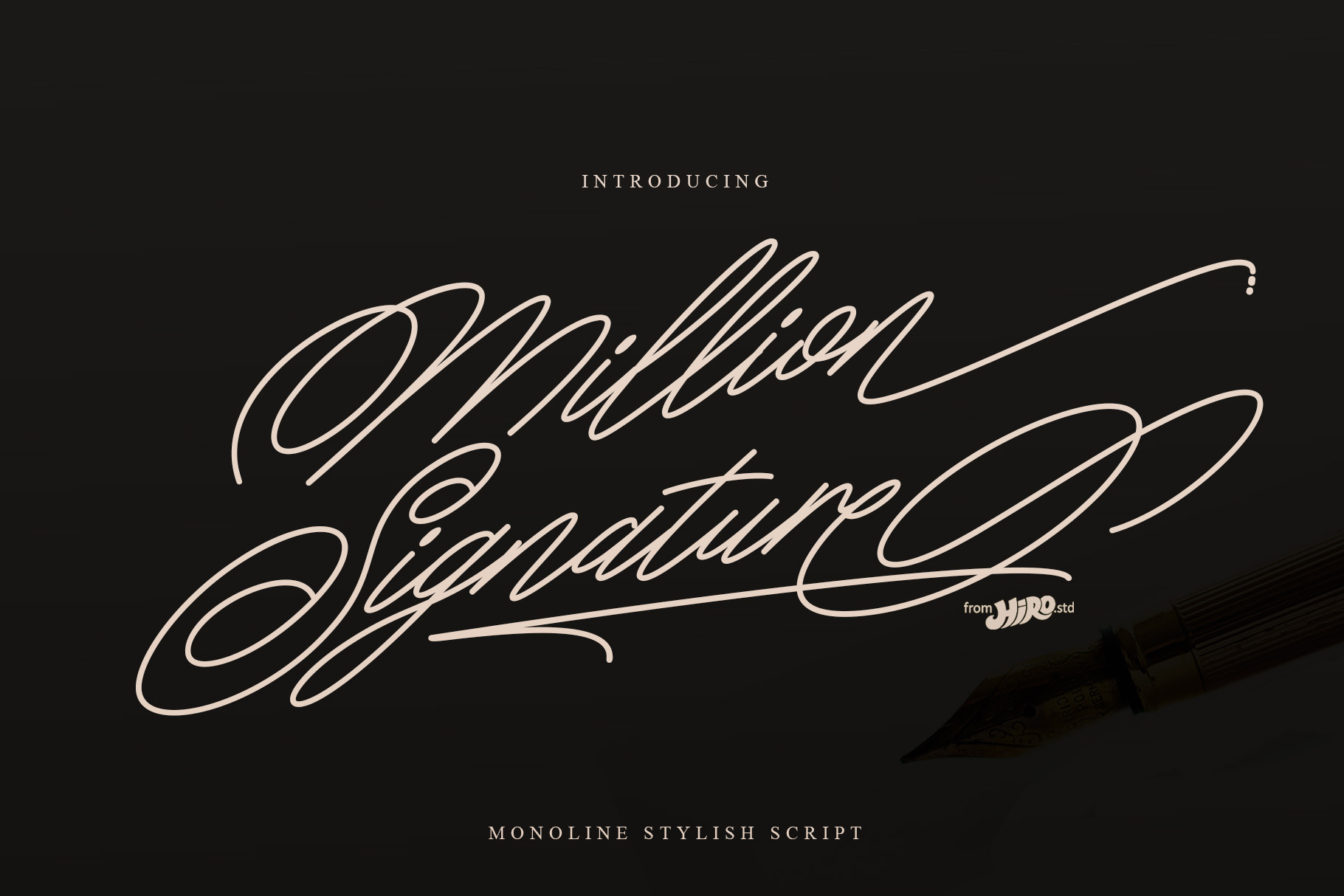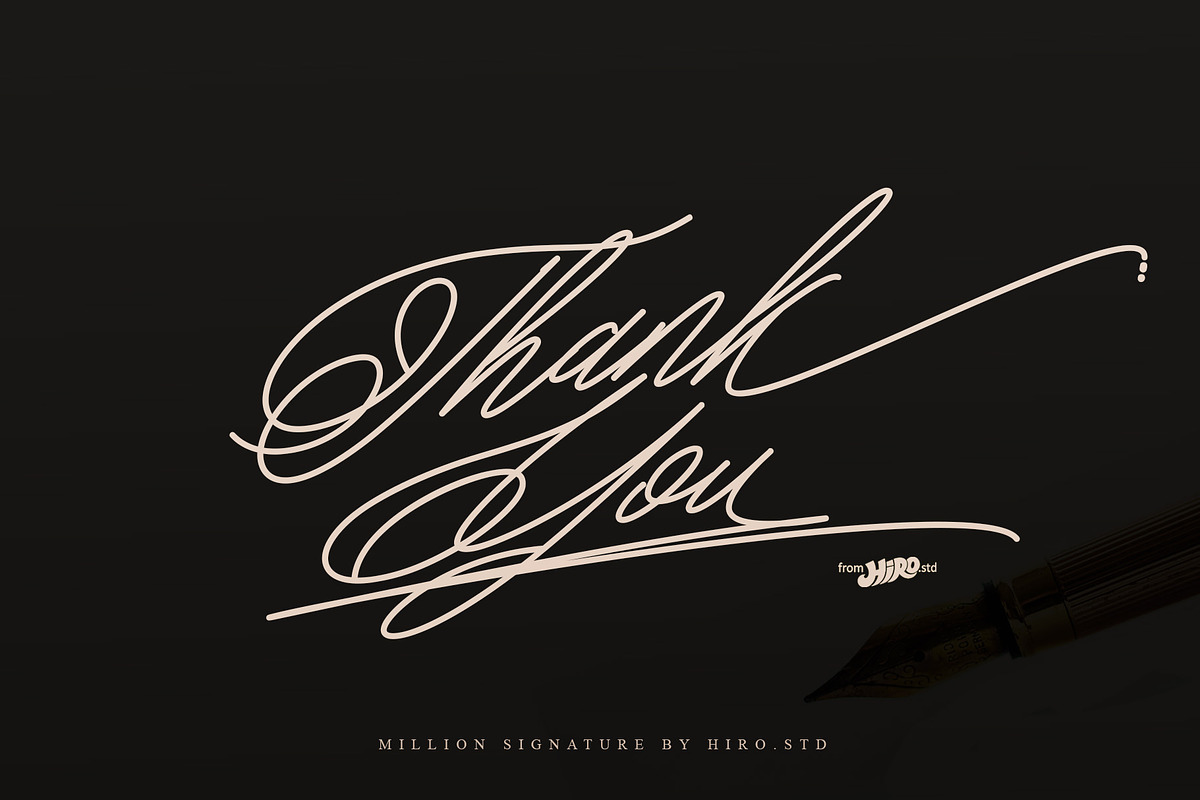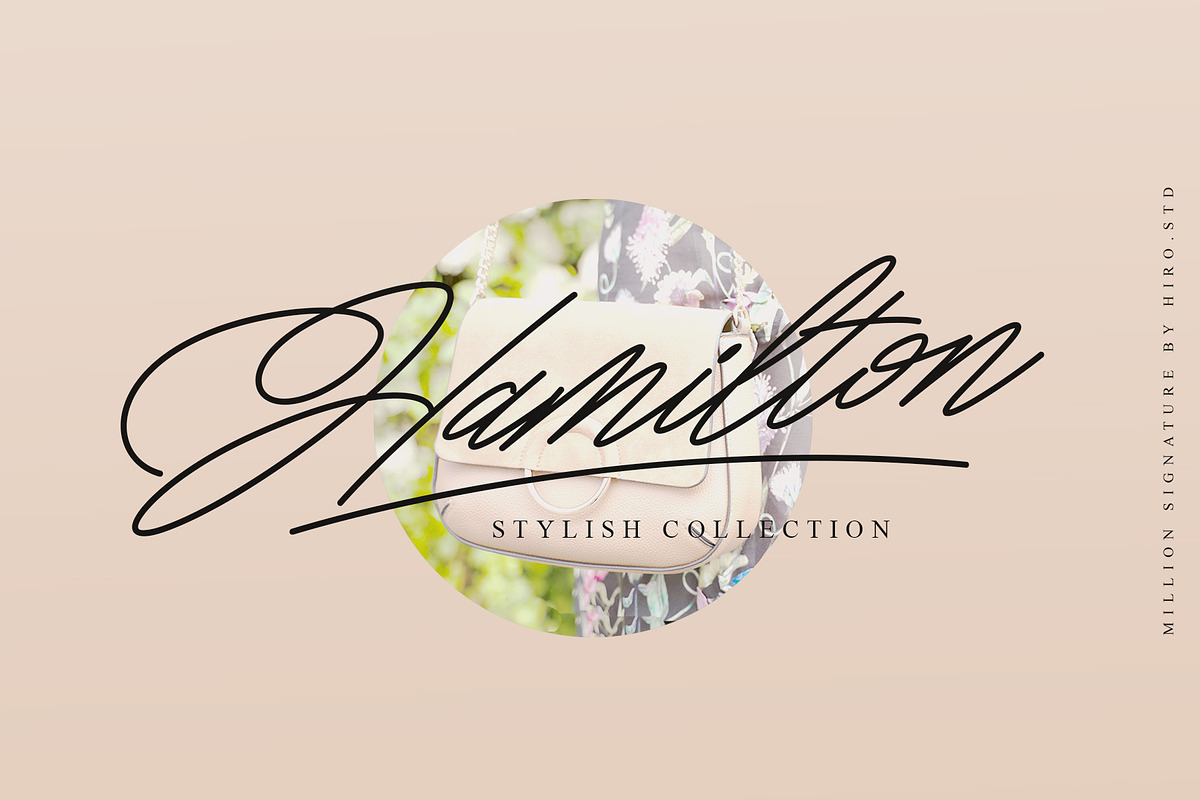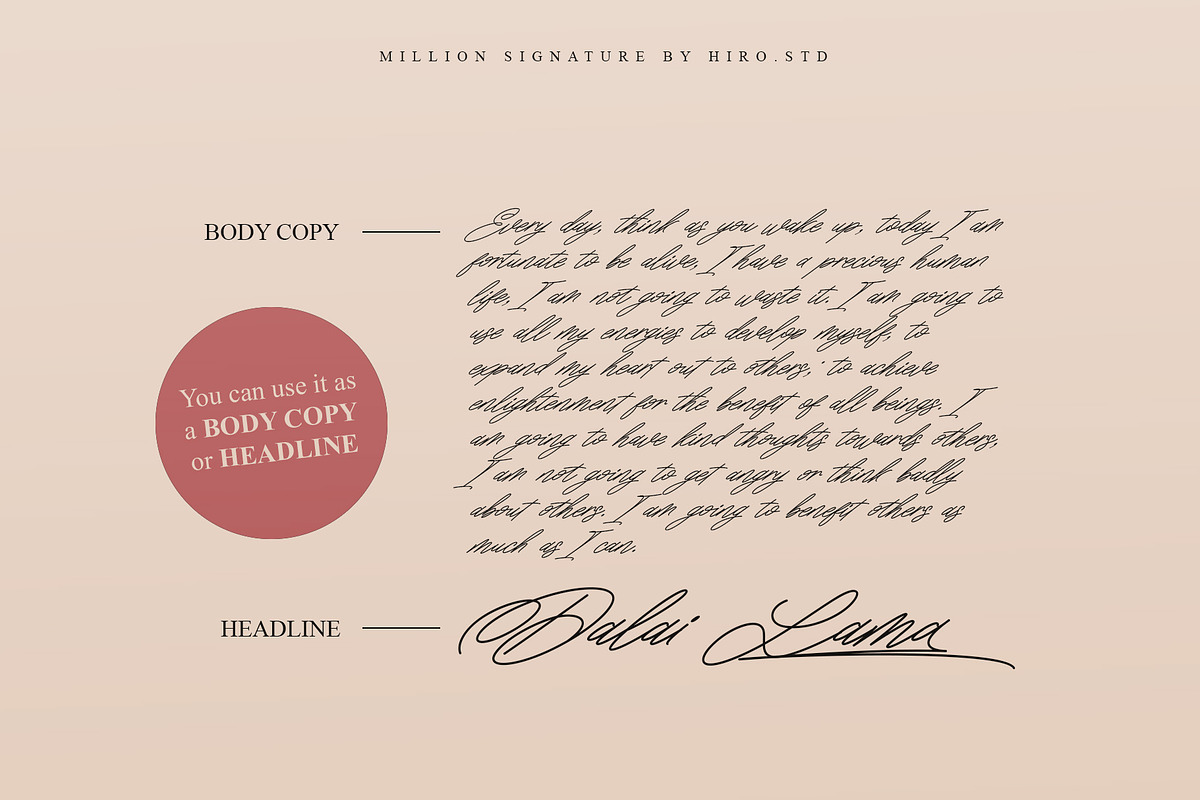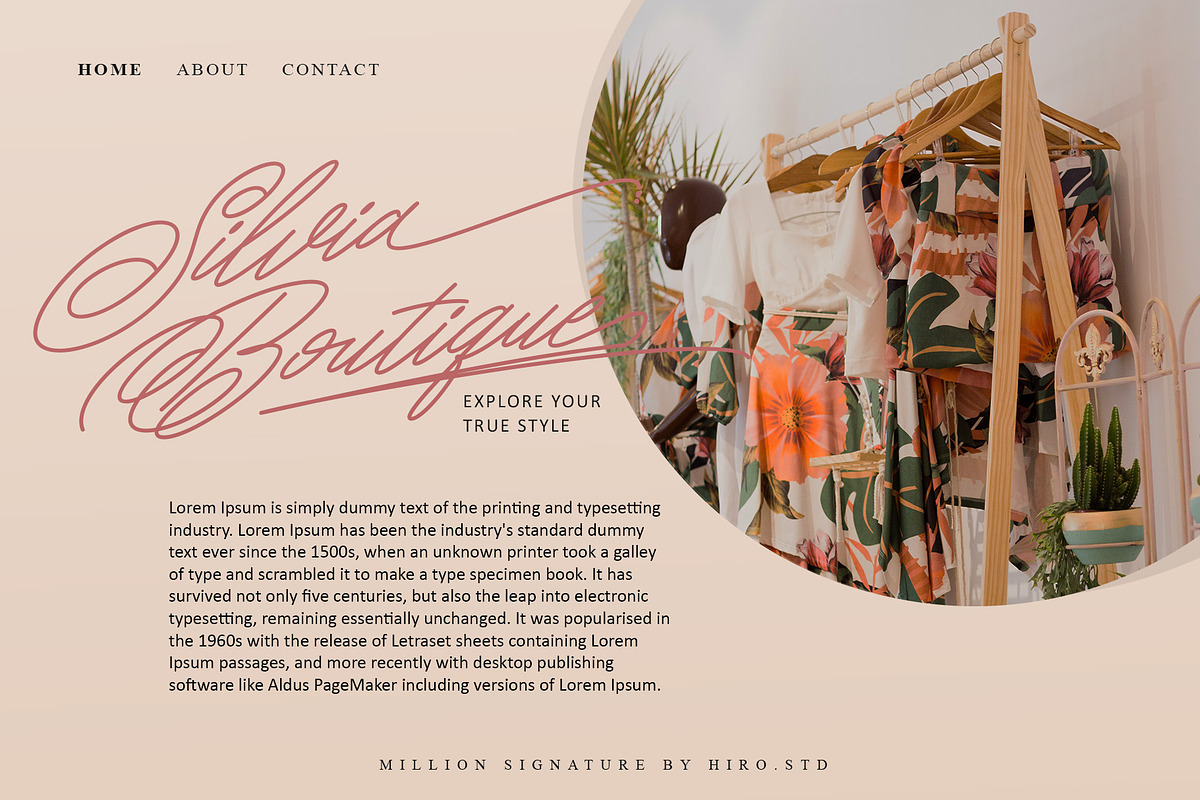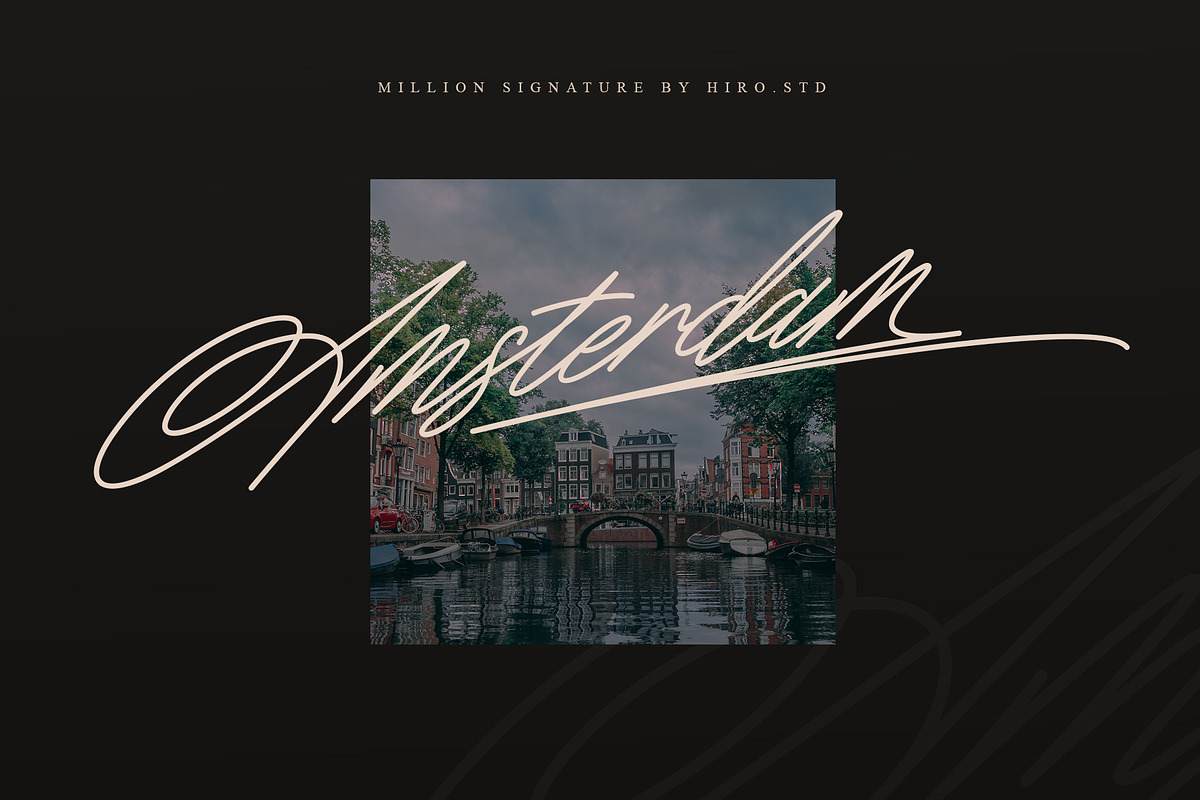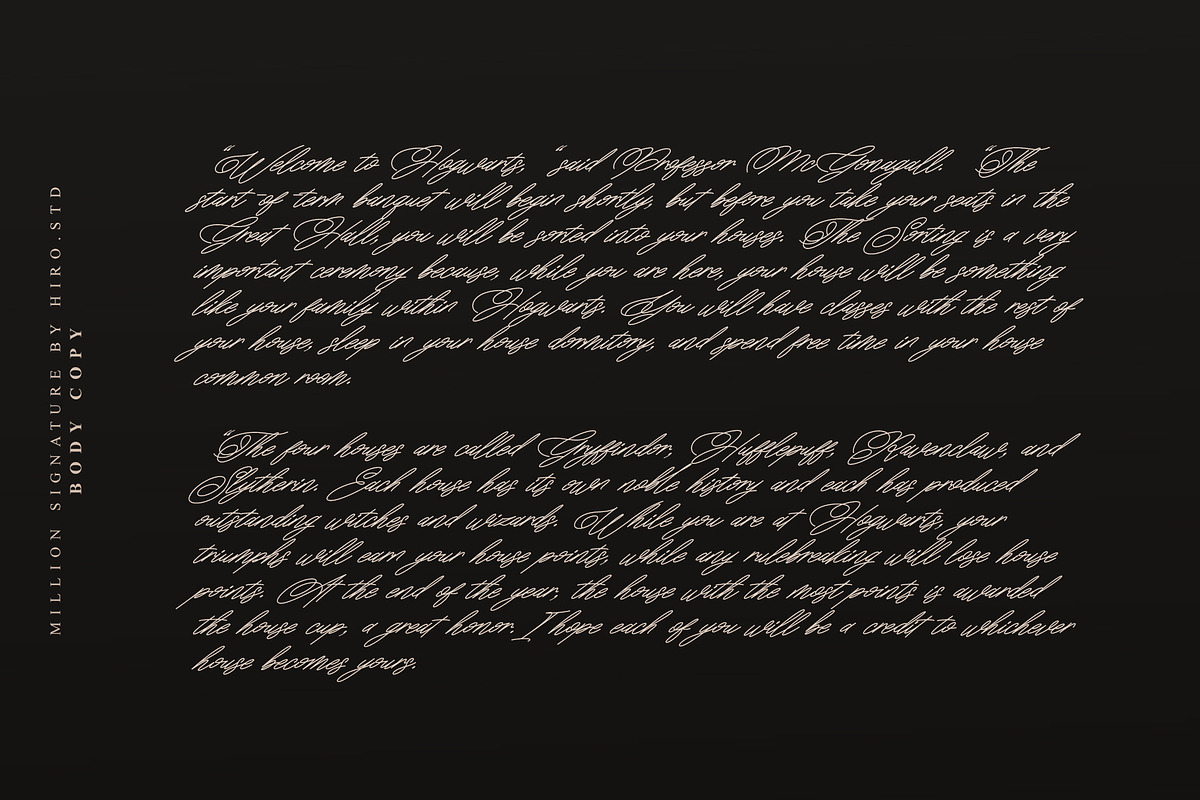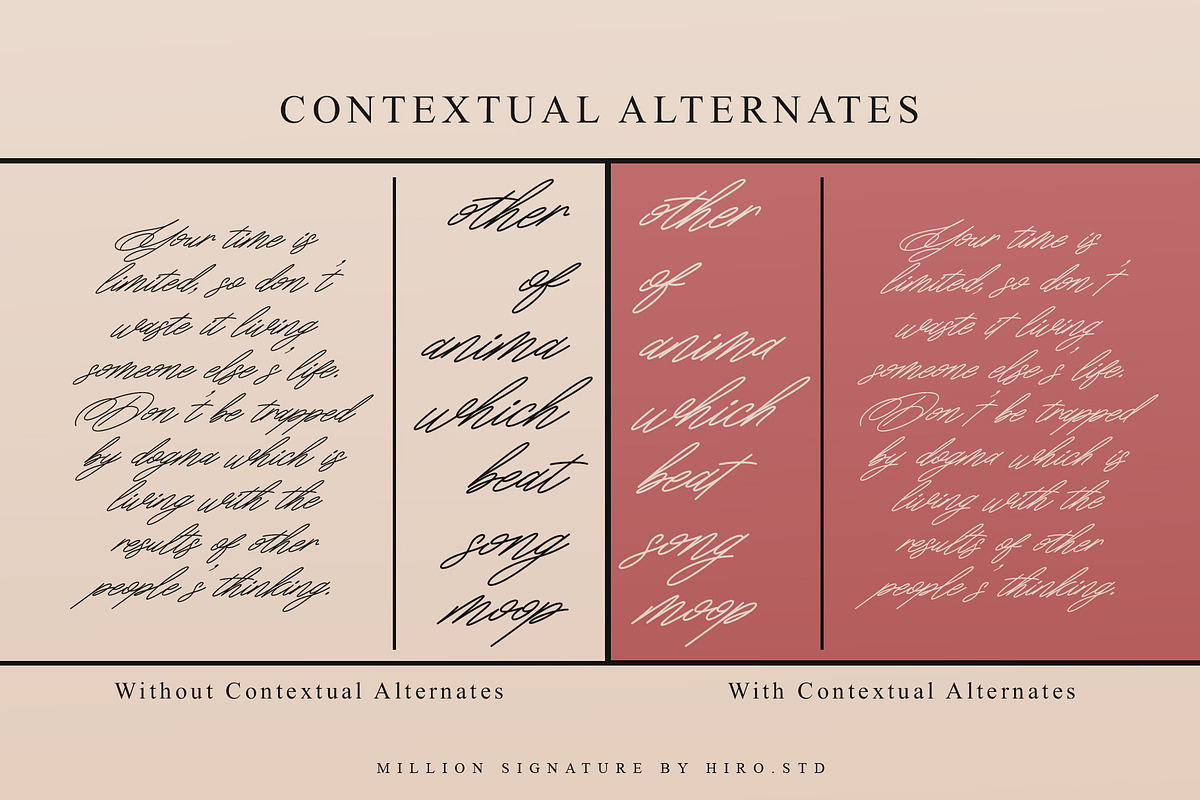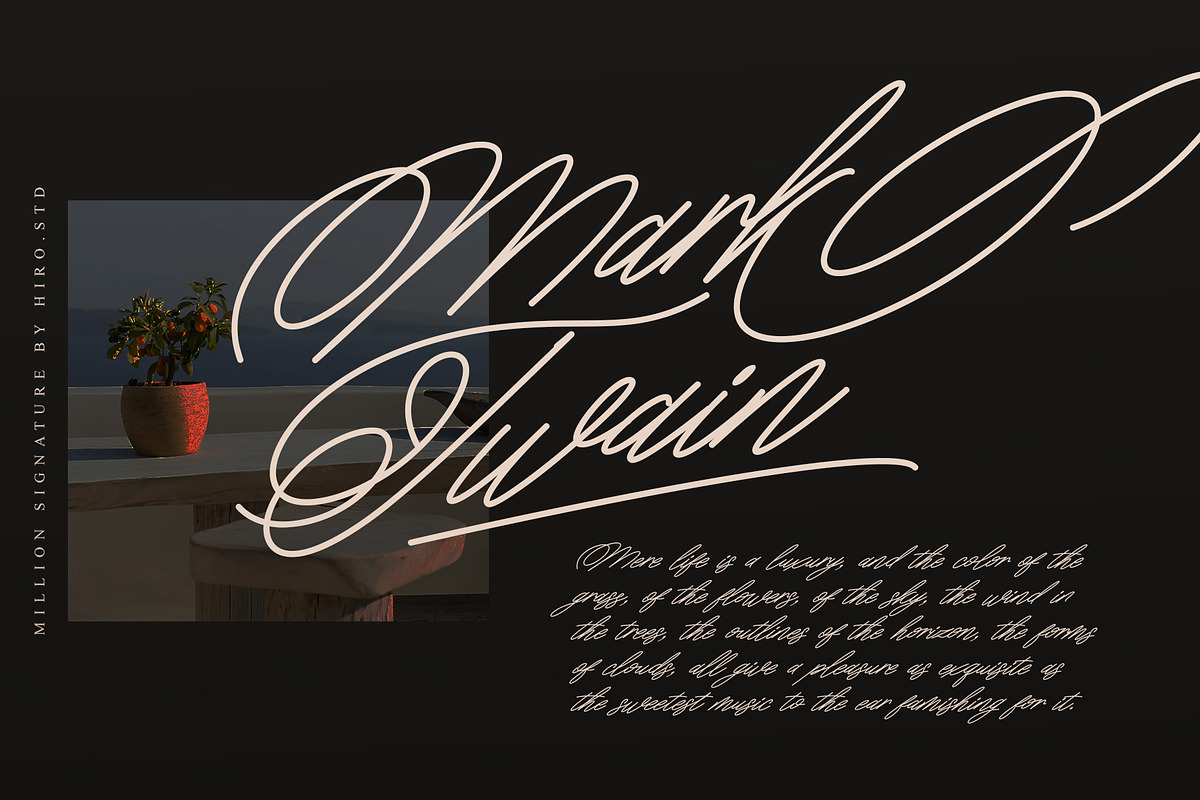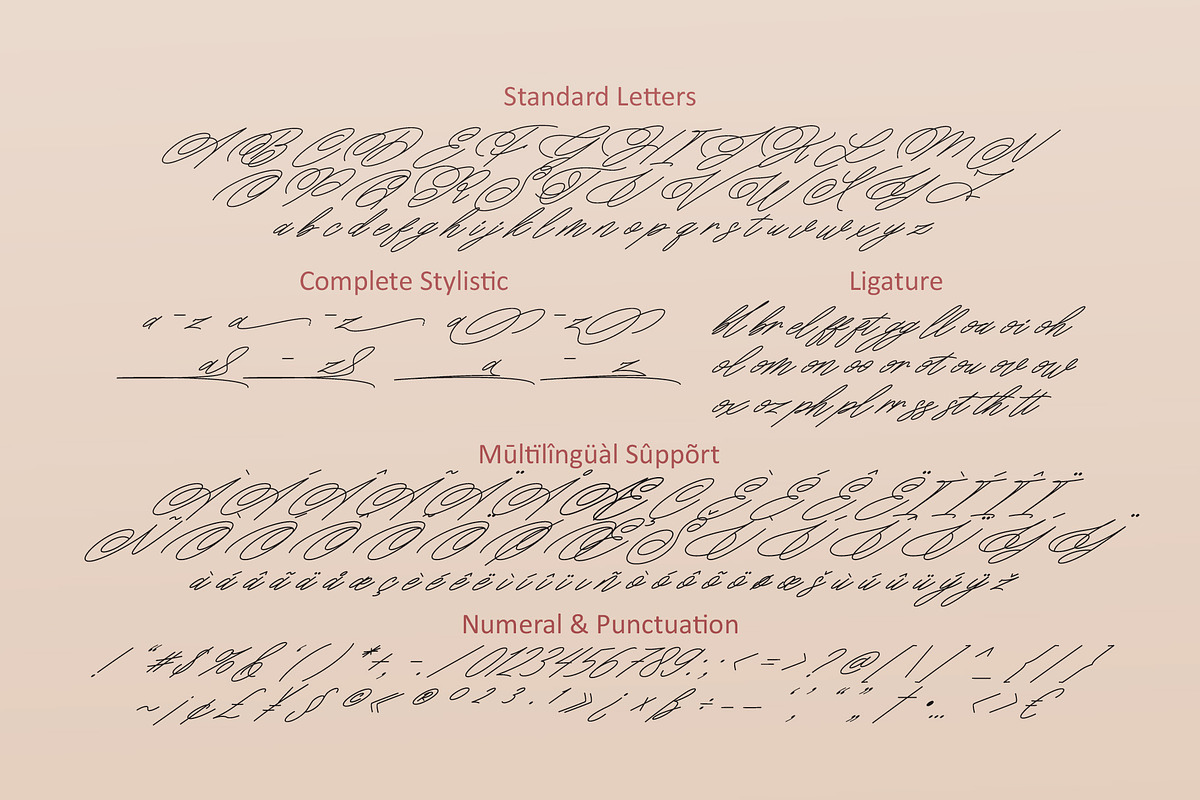
Million Signatures Font
Million Signature is a Monoline Stylish Script.
This font describes about casual, luxury, elegant, stylish, dynamic, easy to use and will bring a good harmony when the letters are connected and paired each other. Million Signature Script inspired from the uniqueness of each human signature around the world.
- Support Opentype Features
- Alternate Lowercase
USE Million Signature Script is perfect for branding projects, logotype, wedding invitation, advertisements, product packaging, stationery, magazine, book or novel, photography, watermark, label, quotes, social media posts and any projects that need all about signature taste.